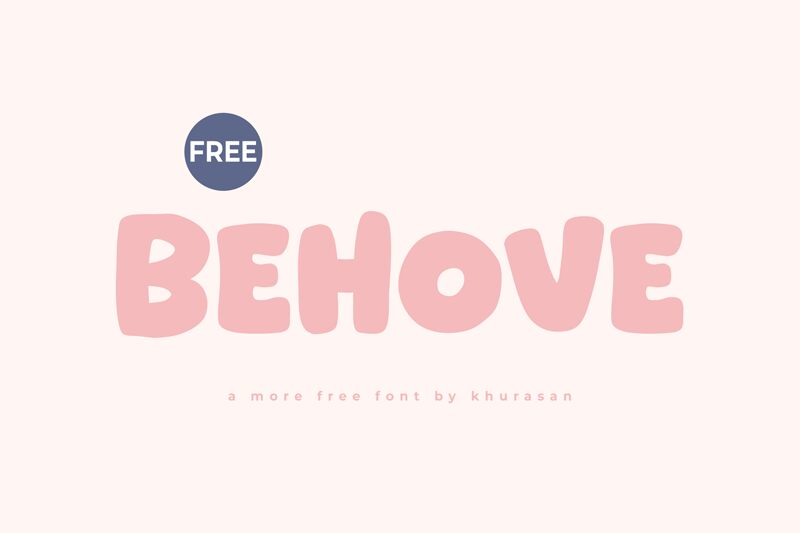
Behove font family by Khurasan is a free font family with 2 font styles with a fun and informal style. It has a bubbling and outgoing personality suited for many playful design applications. Its shapes are apparently handwritten with a rough outside and the inside of the characters appears empty with a bubbly look.
Behove font family is a great typeface for use in posters, websites, ads, and social media. The font makes a good choice for children’s books, logo design, and branding. Also, this typeface can be used in printables such as t-shirts, packaging, and much more.